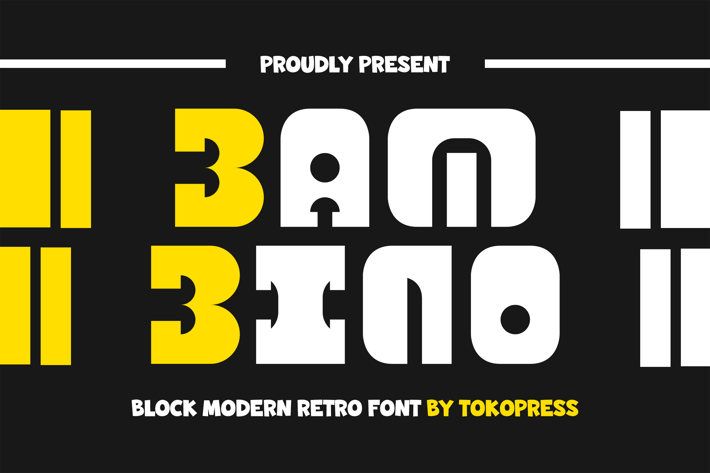
Bambino - Block modern font
Bambino is a block modern display typeface designed for creators seeking a high-impact font with bold proportions, geometric curves, and a modular letterform structure. Its heavy visual weight and rounded terminals make it ideal for delivering energetic, retro-futuristic vibes across digital and print media. With a style that balances nostalgia and modernity, Bambino fits seamlessly into music promotions, tech branding, and urban-style campaigns. Whether it’s a streaming thumbnail or club flyer, Bambino brings attitude and clarity.
If you're designing a bold electronic music poster, motion graphic title, or building an editorial layout with character, Bambino delivers the presence your project needs. Its strong, structured rhythm and visual punch make it especially compelling for creative professionals aiming to grab attention in the first scroll. From album covers to startup branding, Bambino's distinctive presence turns ordinary text into visual impact.
Key Features :
Bold & Structured: Geometric construction with a modular system that adds rhythm and balance
Versatile Appeal: From EDM posters to podcast covers and digital ads
Retro-Modern Fusion: Nostalgic structure meets futuristic minimalism
Easy to Read: Great legibility for both small labels and large headers
* Brand-Ready: Instantly adds personality to logotypes and hero text